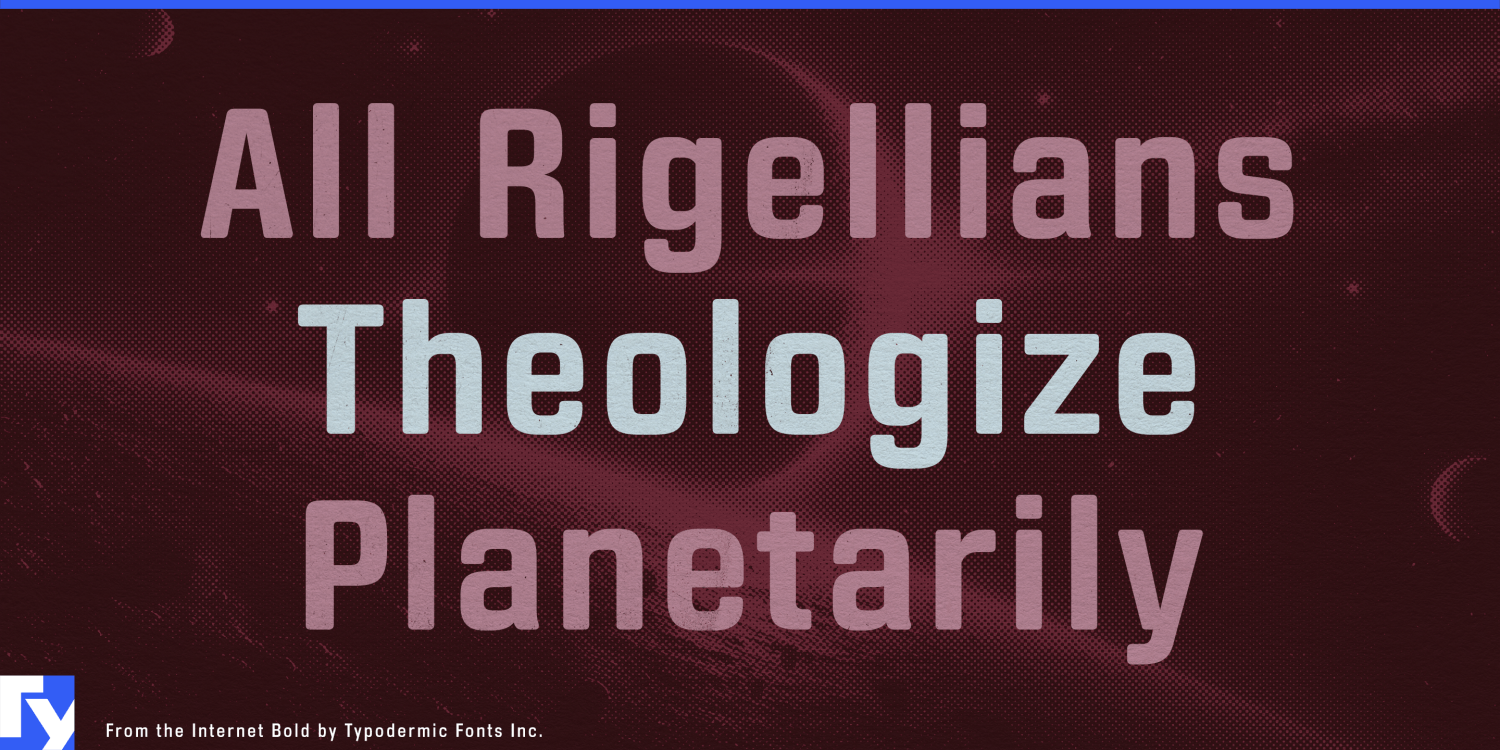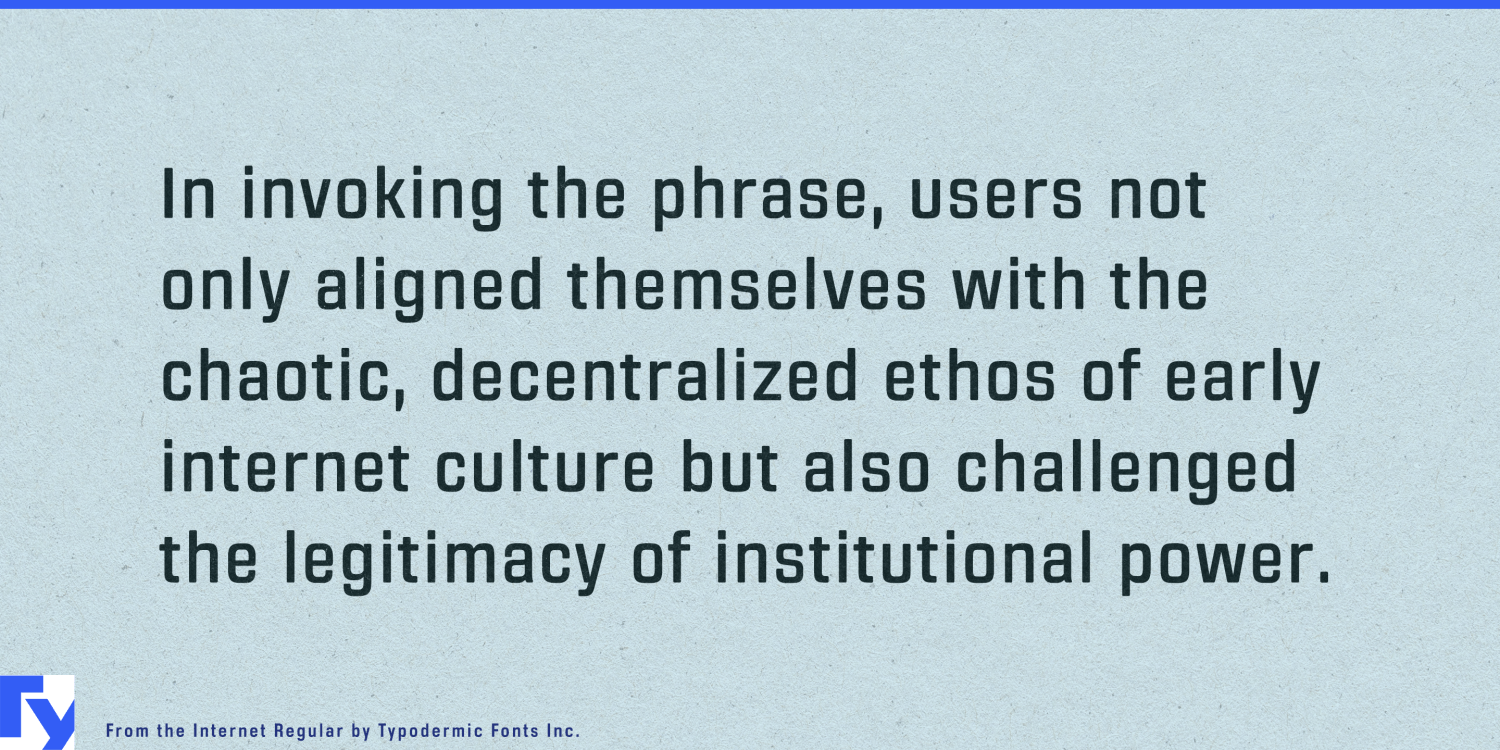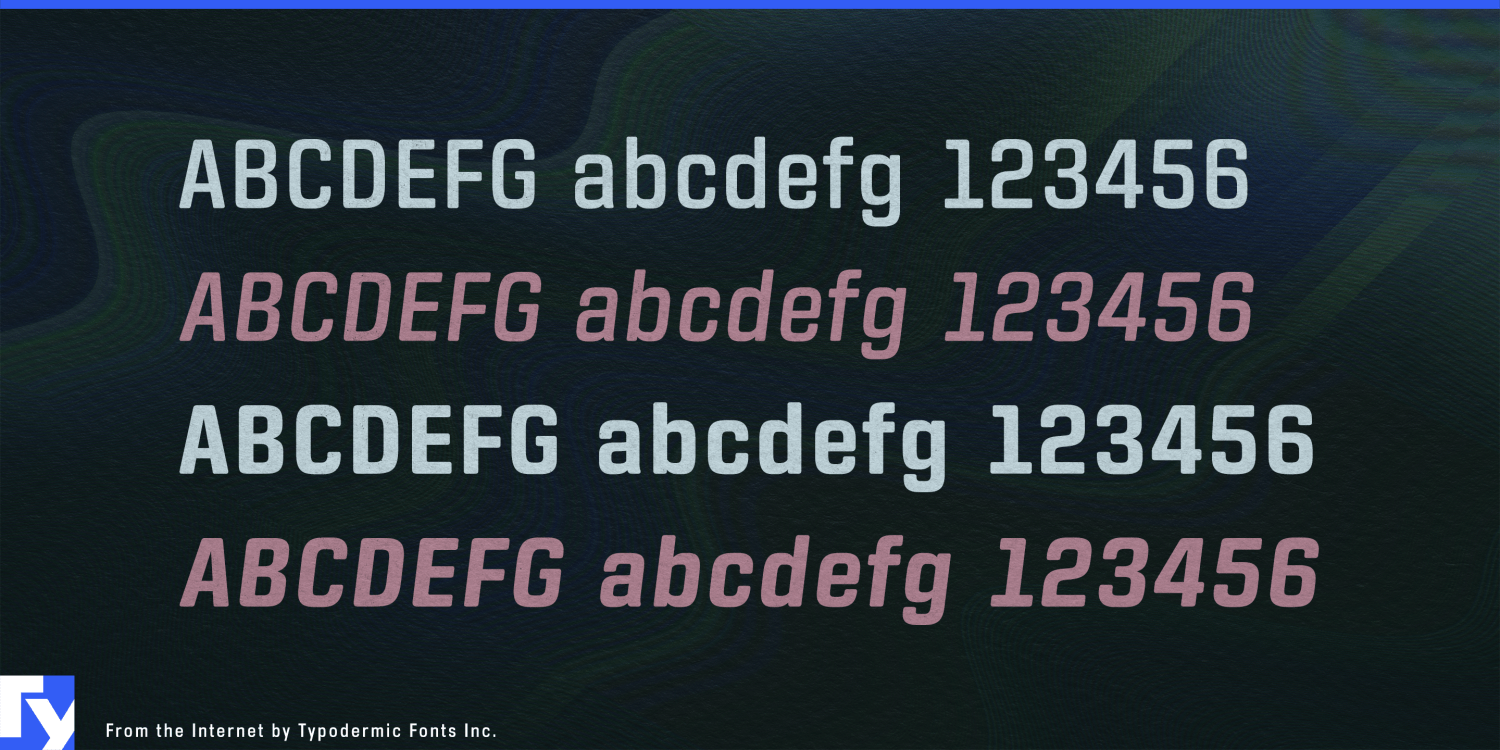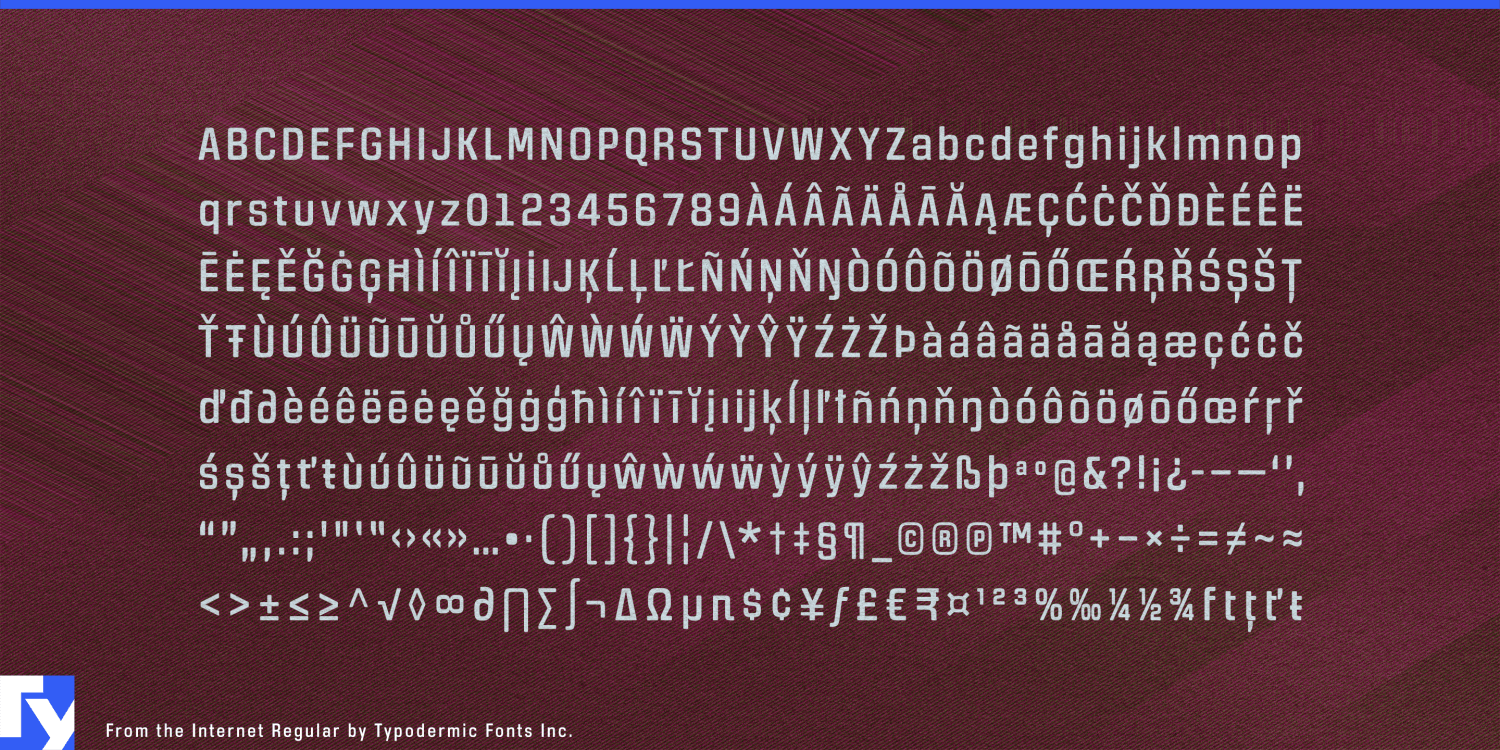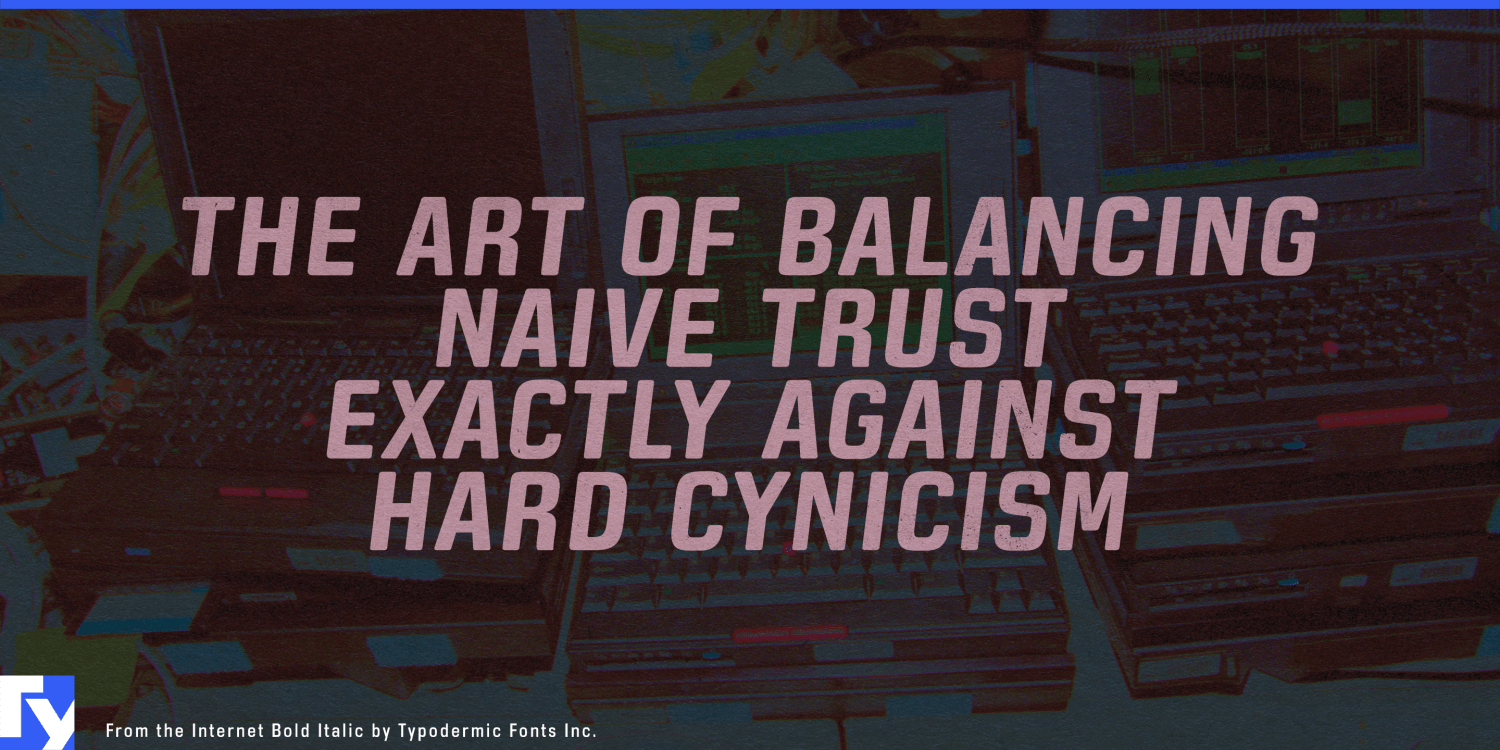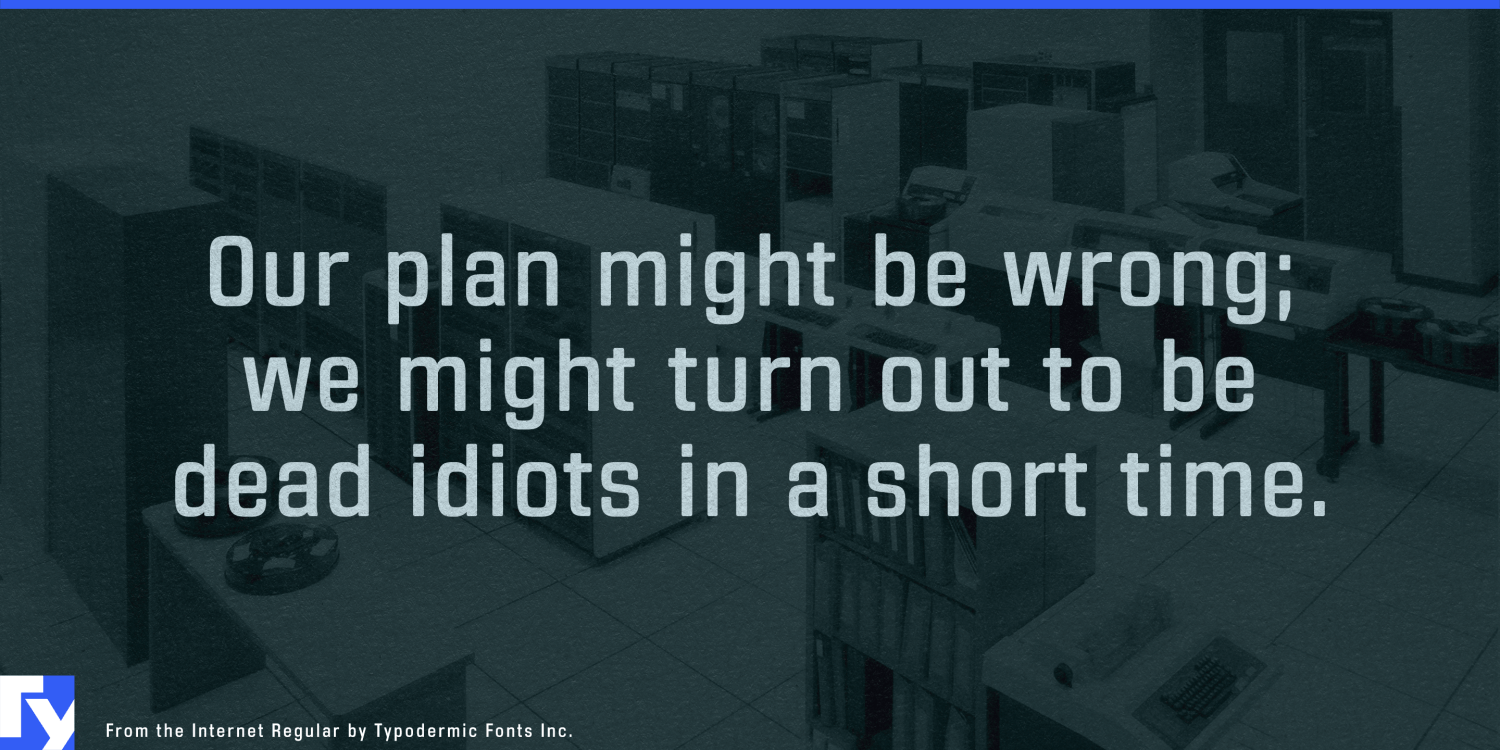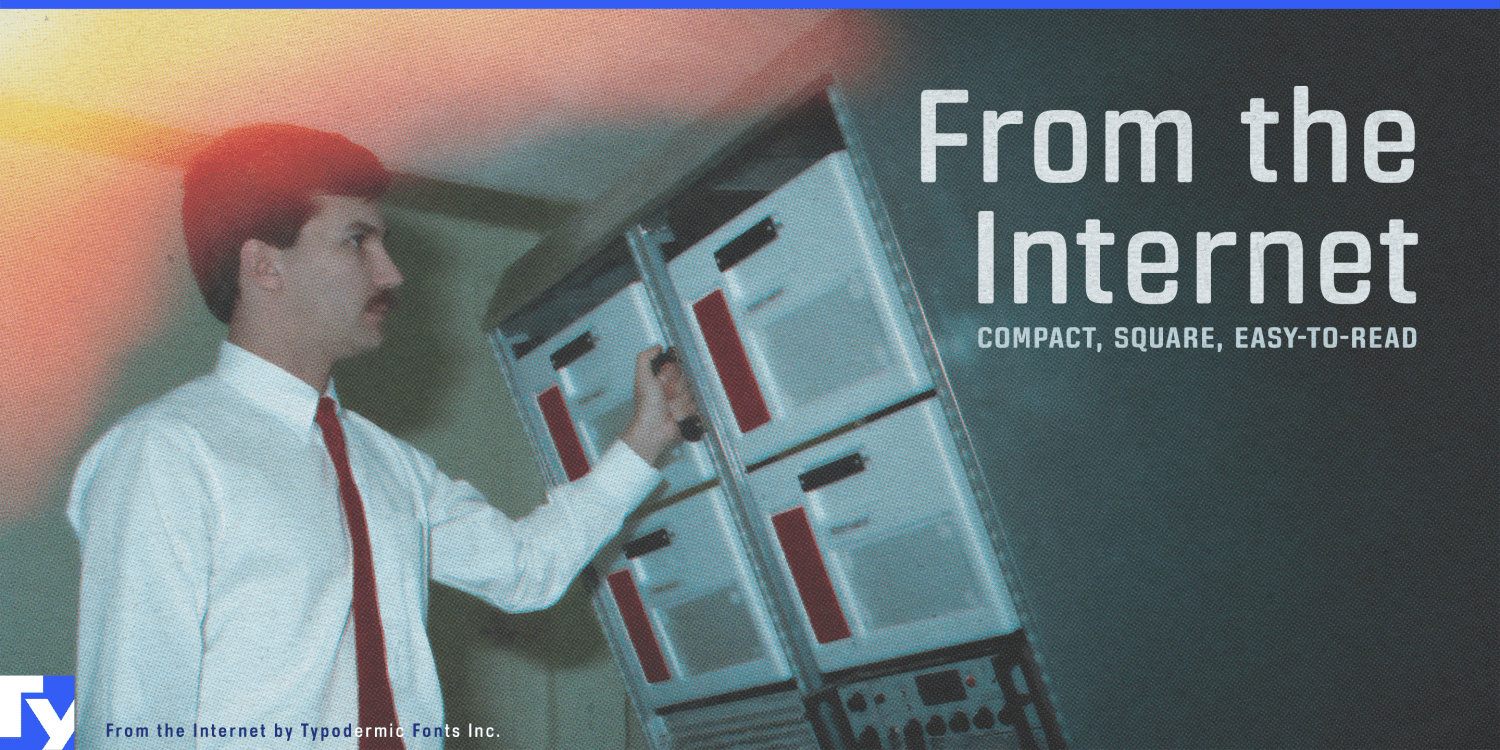
From the Internet
About From the Internet
Behold, From the Internet—the sans-serif typeface that elevates monotony to an art form. This font is so pragmatic, it makes spreadsheets look exciting by comparison. Its narrow, square shapes create a compact appearance that’s about as thrilling…